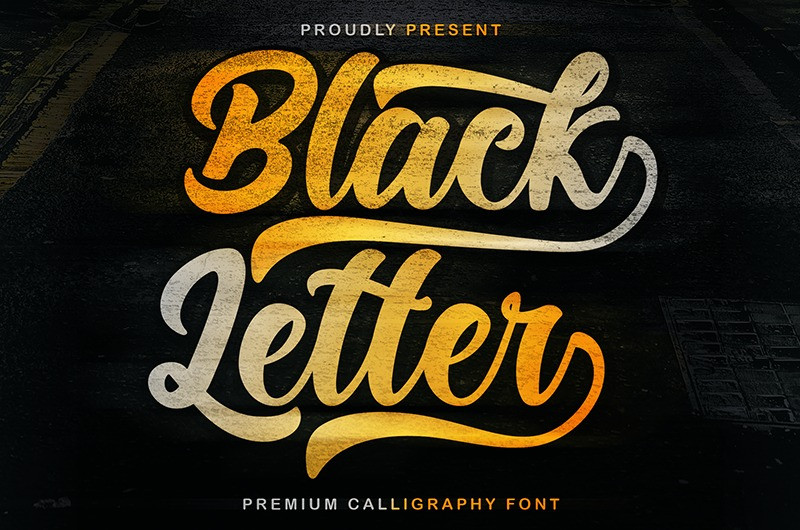
Black Letter Font
Black Letter Script Font, is a beautiful yet casual calligraphy logotype font, perfect for giving your logo treatments a refined and retro appeal. This font is bold and swashy and can add some expression to your works.